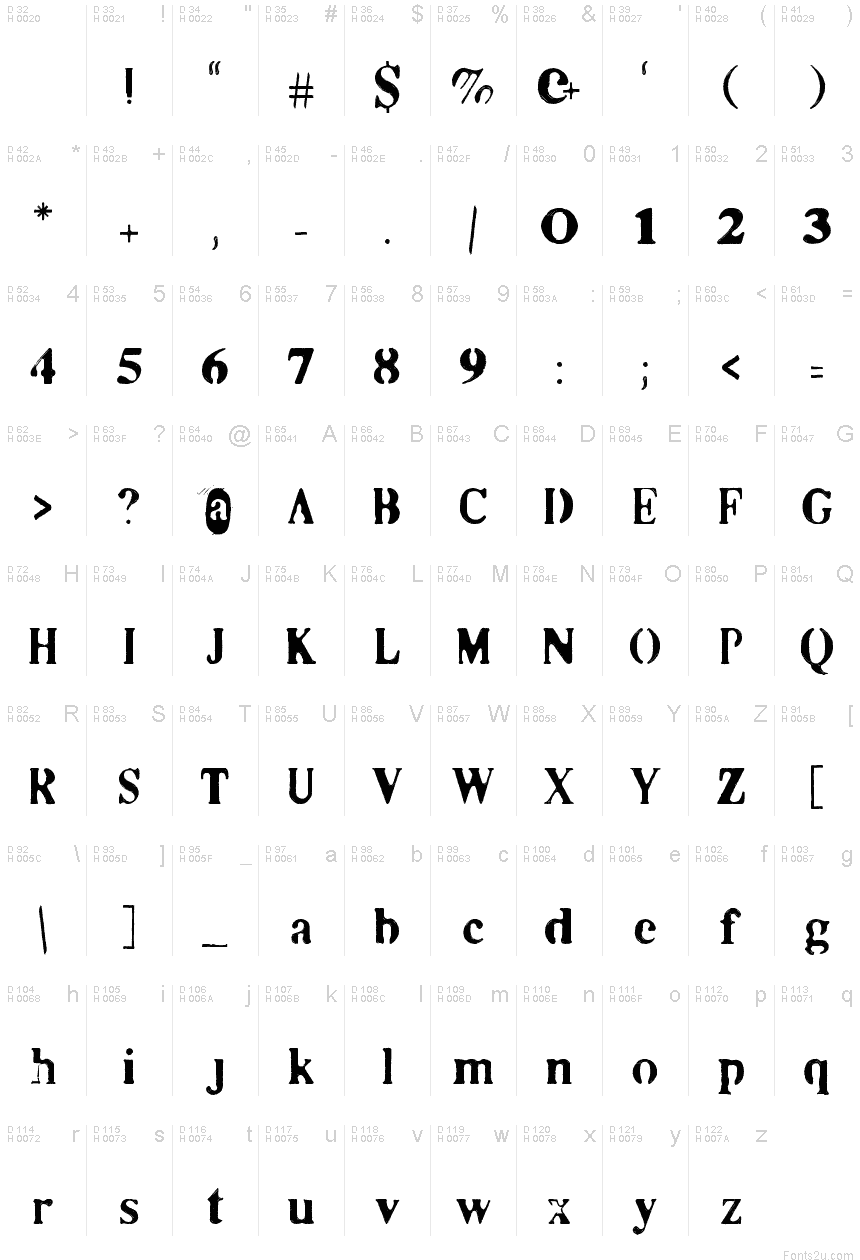
Co2 by Lea K. is a free decorative display font with jagged, old-world letterforms and a deliberately battered surface. Broad vertical strokes, sharp wedge-like serifs, and deeply uneven cuts make the lettering resemble hand-carved wooden signage.
Packaging is its strongest medium. Its rough theatrical edge suits craft beer labels, horror posters, festival merchandise, book covers, and historical game graphics, especially when the lettering needs to become part of a weathered sign rather than look like clean modern type.